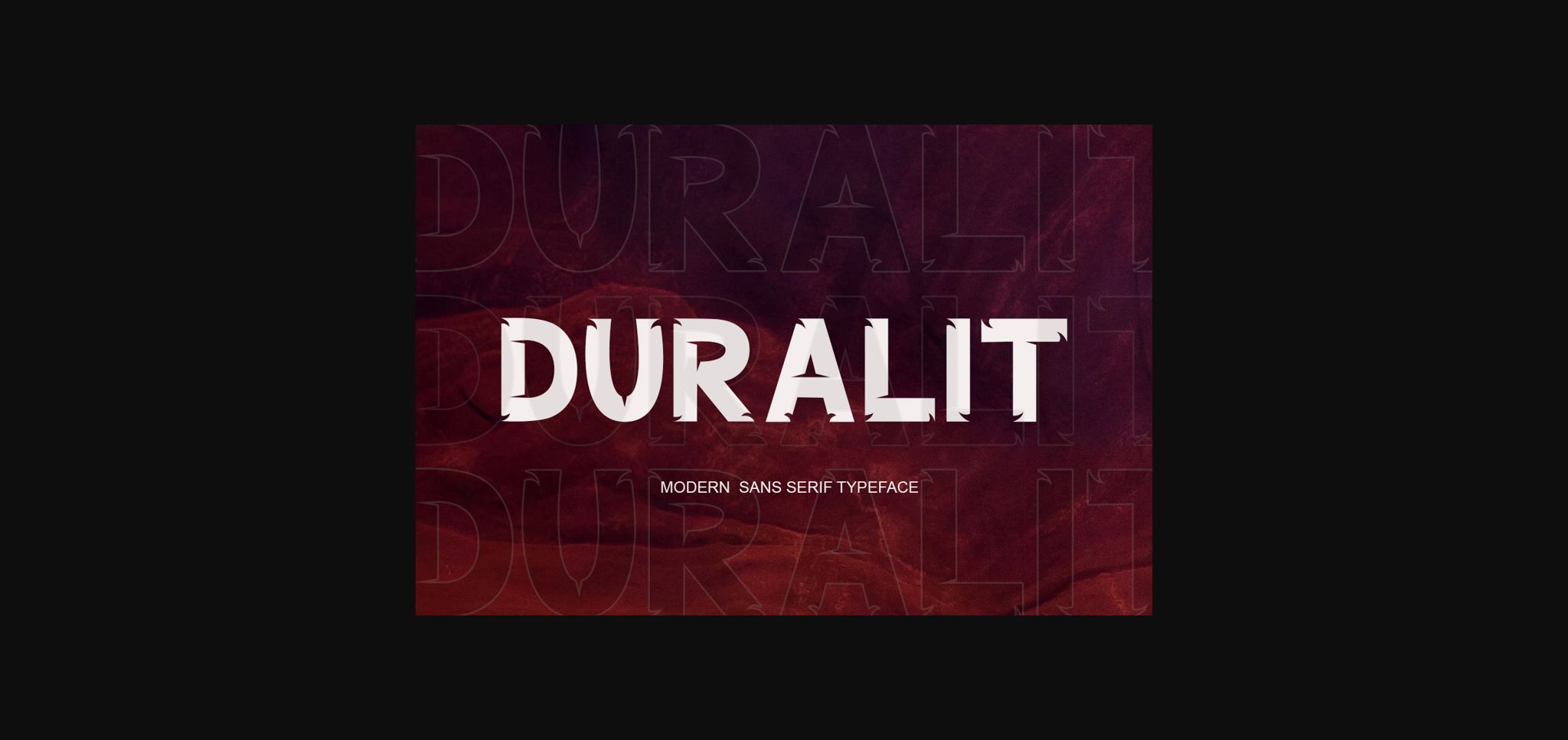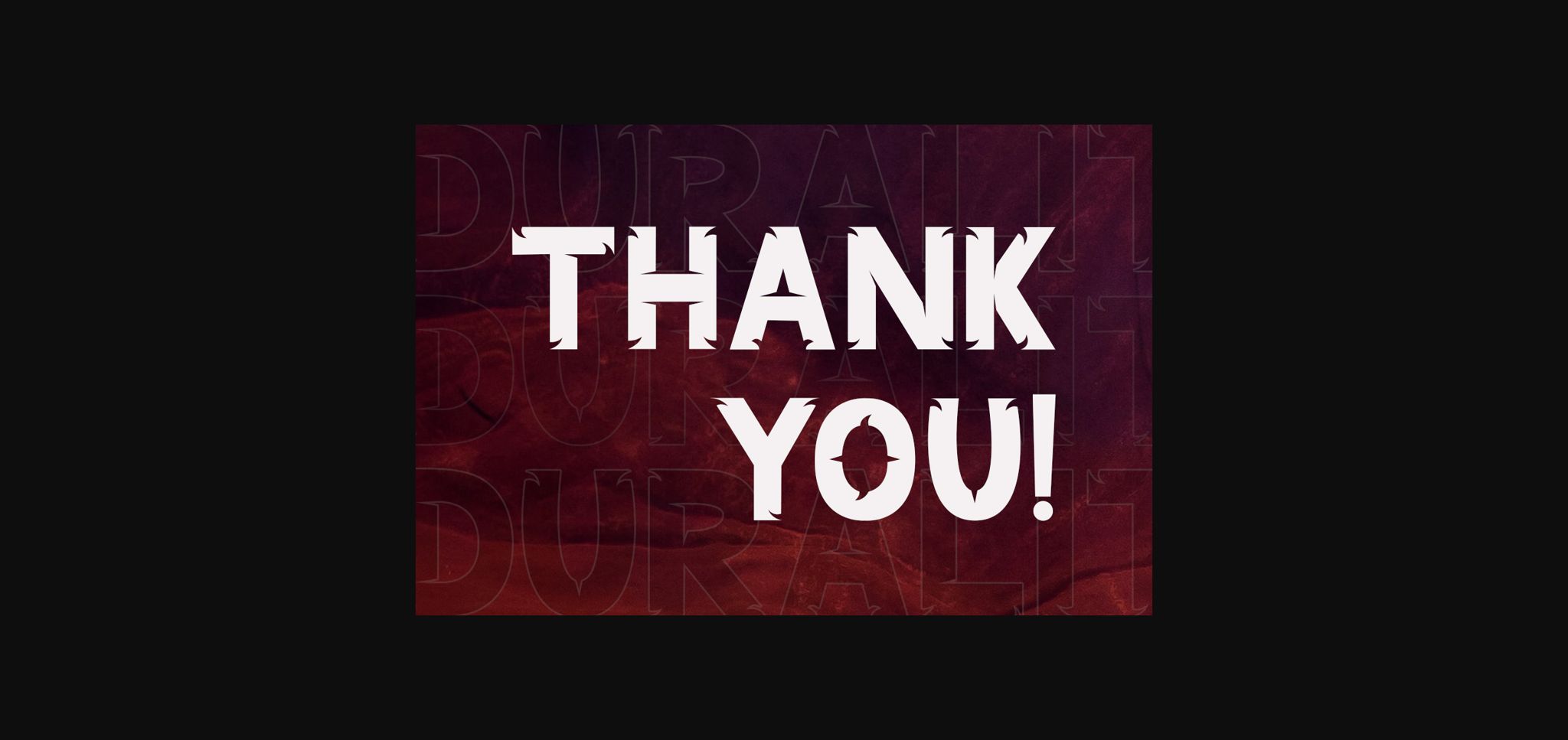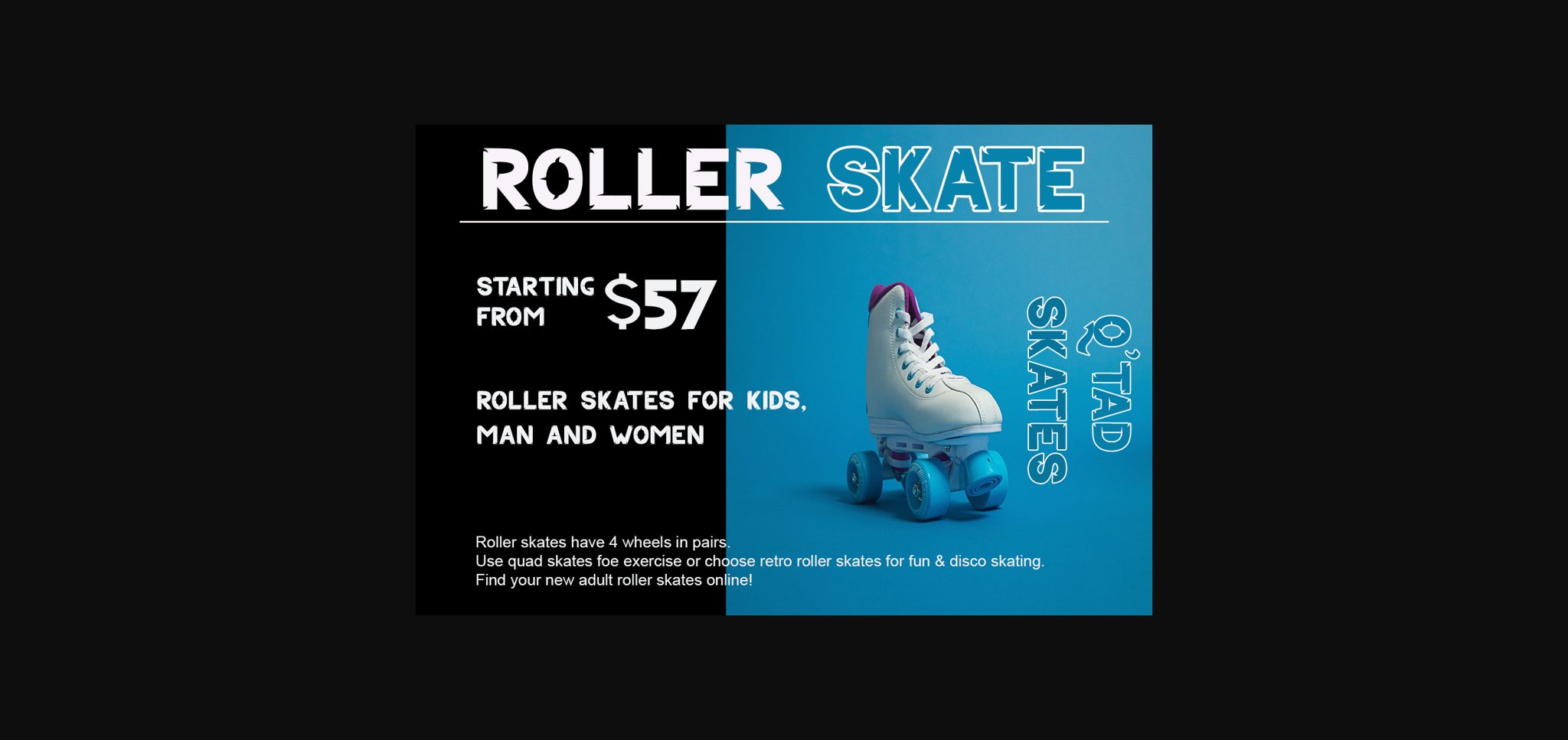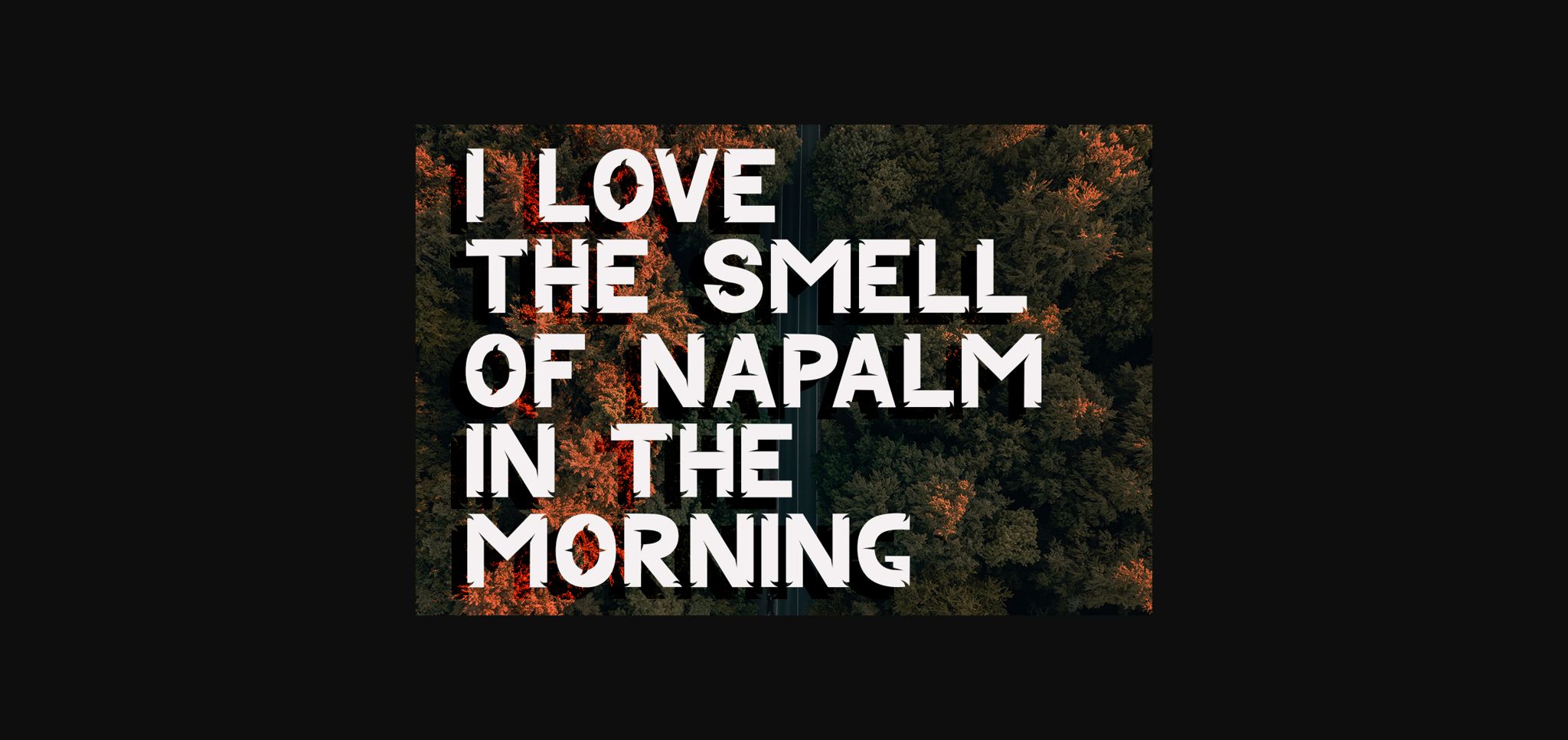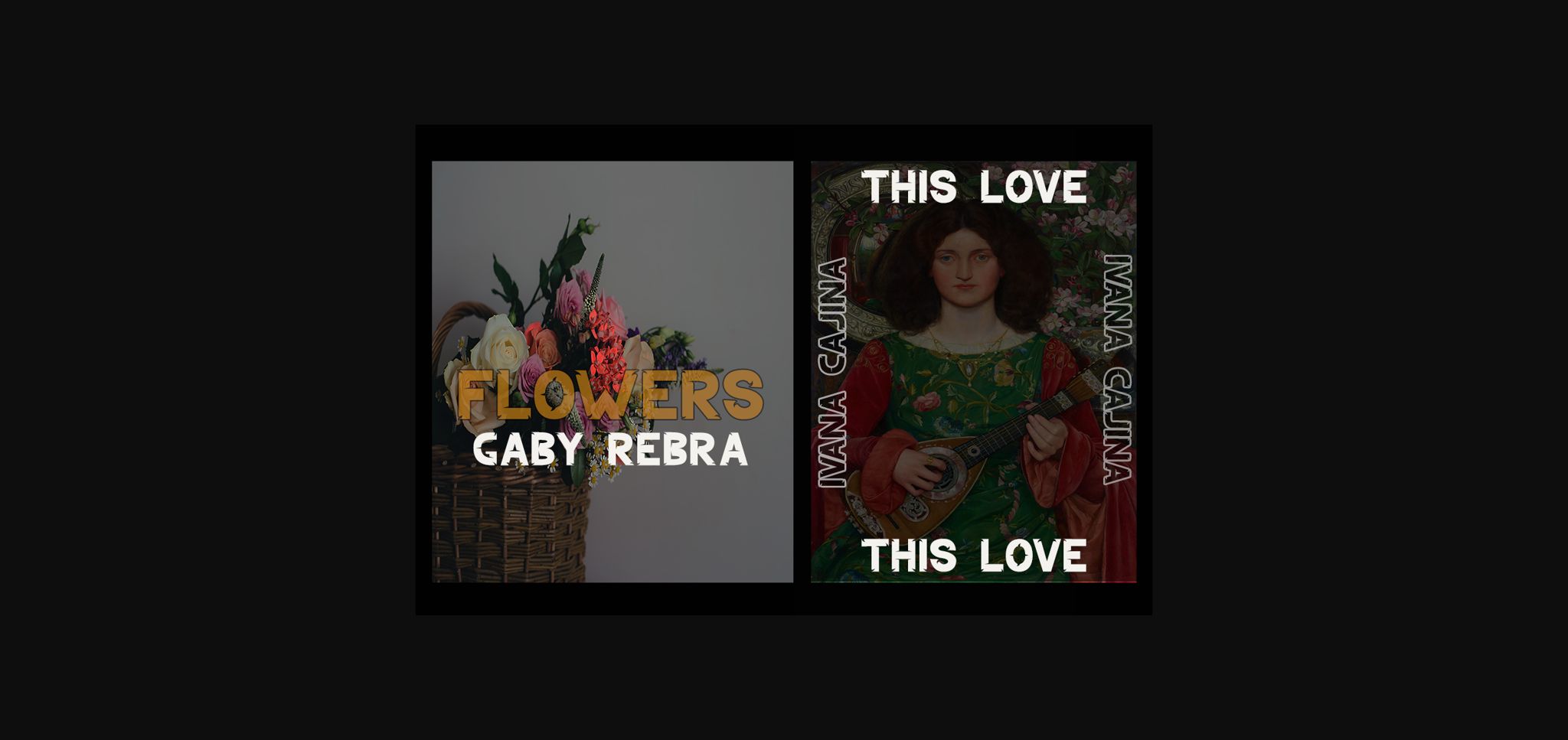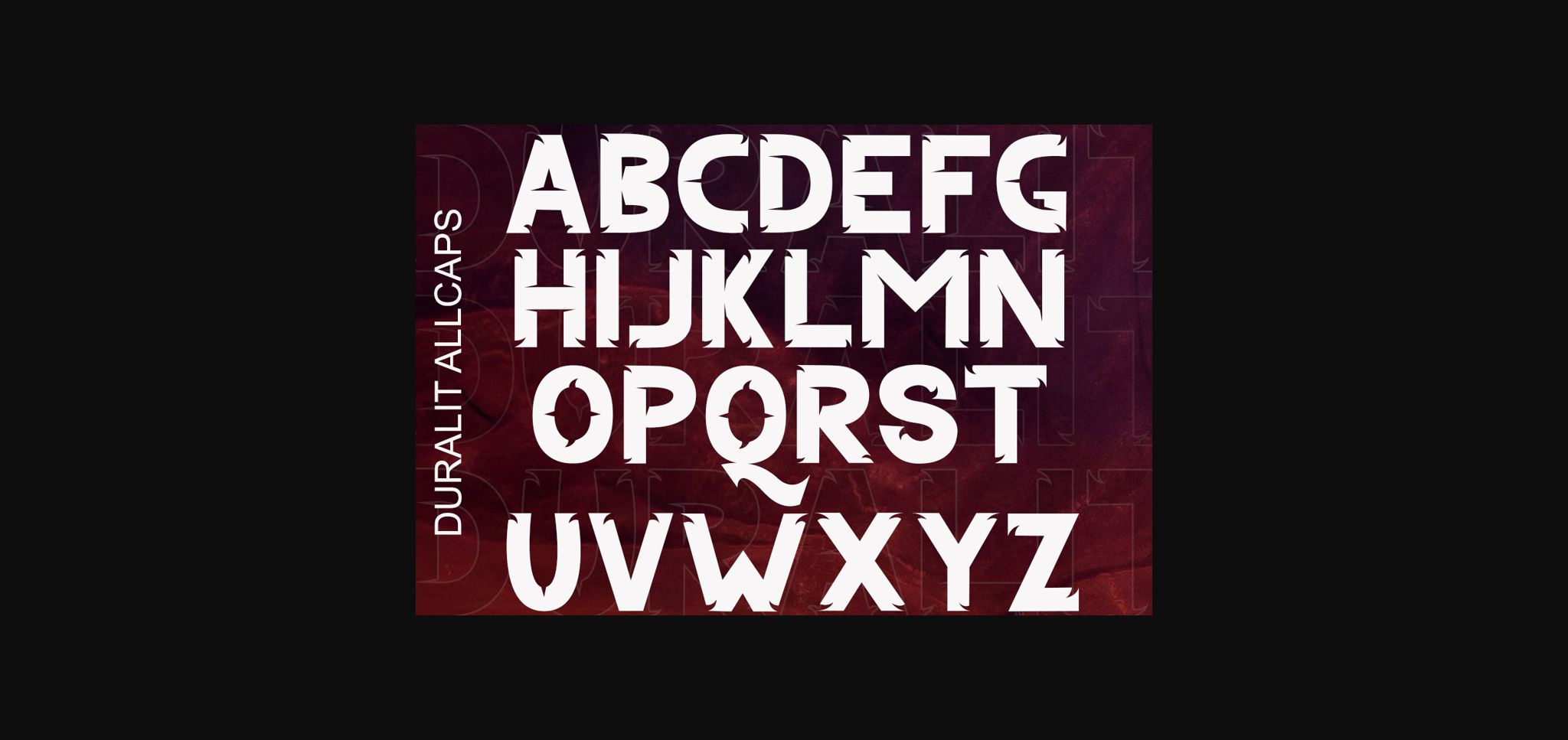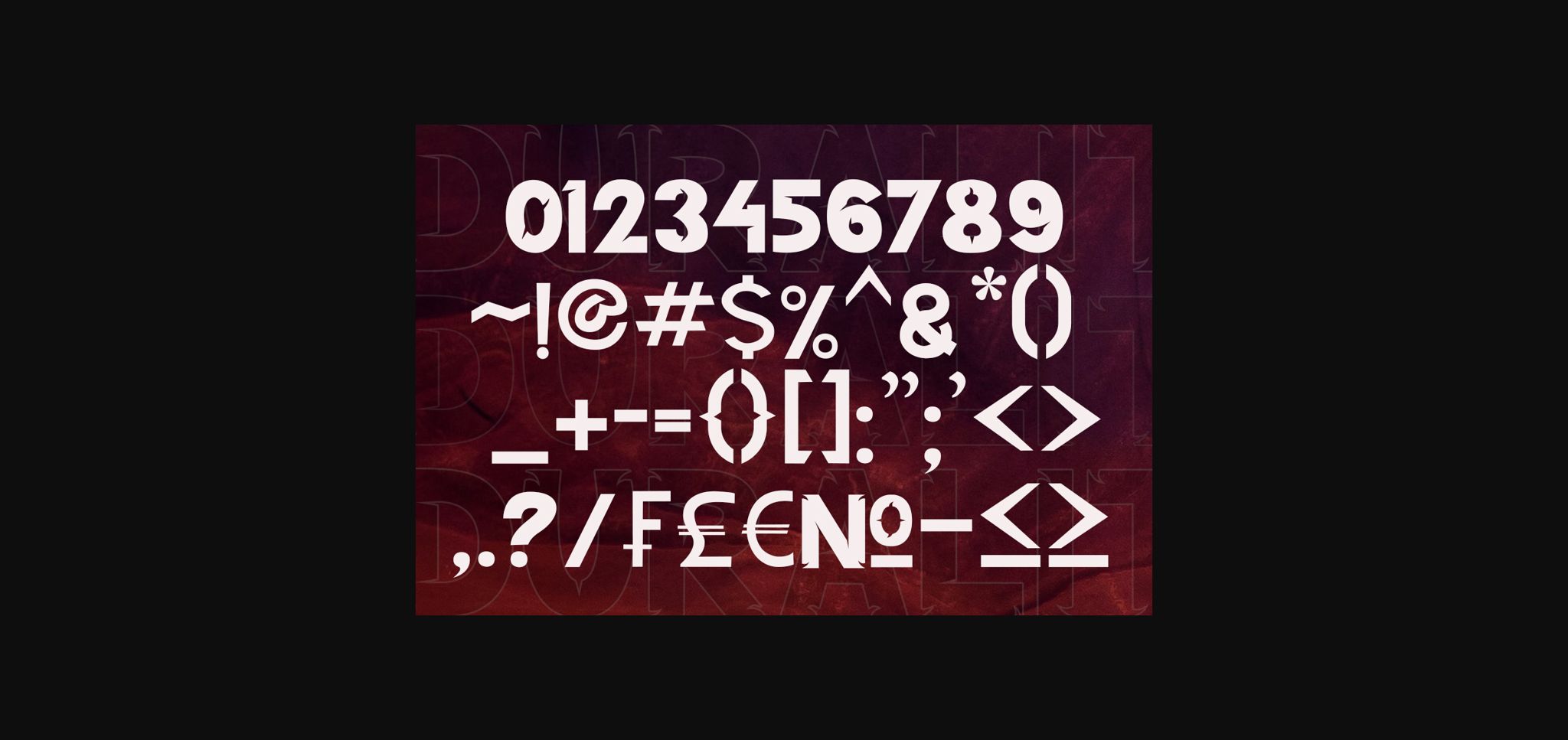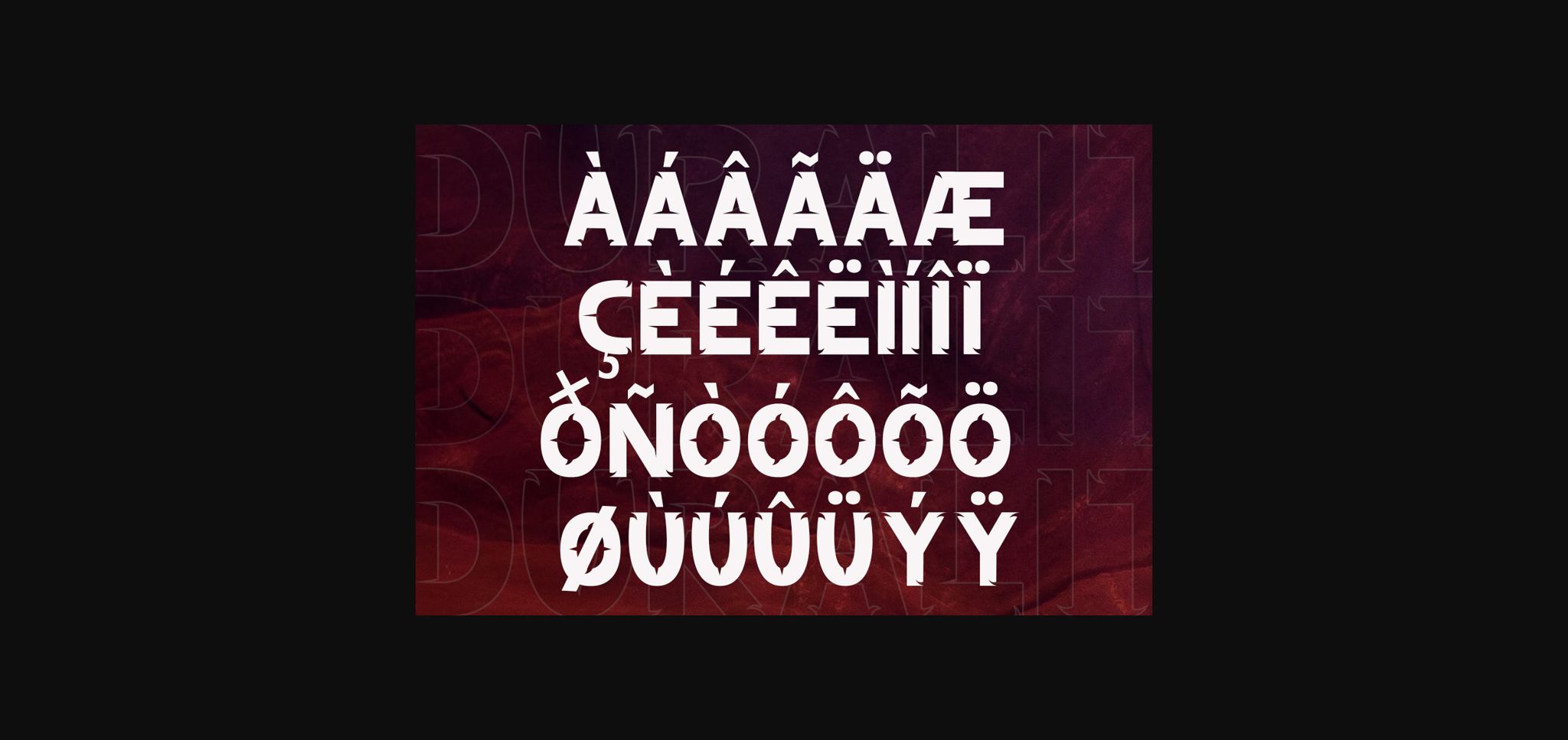
Duralit is a bold sans serif font, fitting a wide variety of designs. Its chunky characters will make your project stand out! The only limit is your imagination!